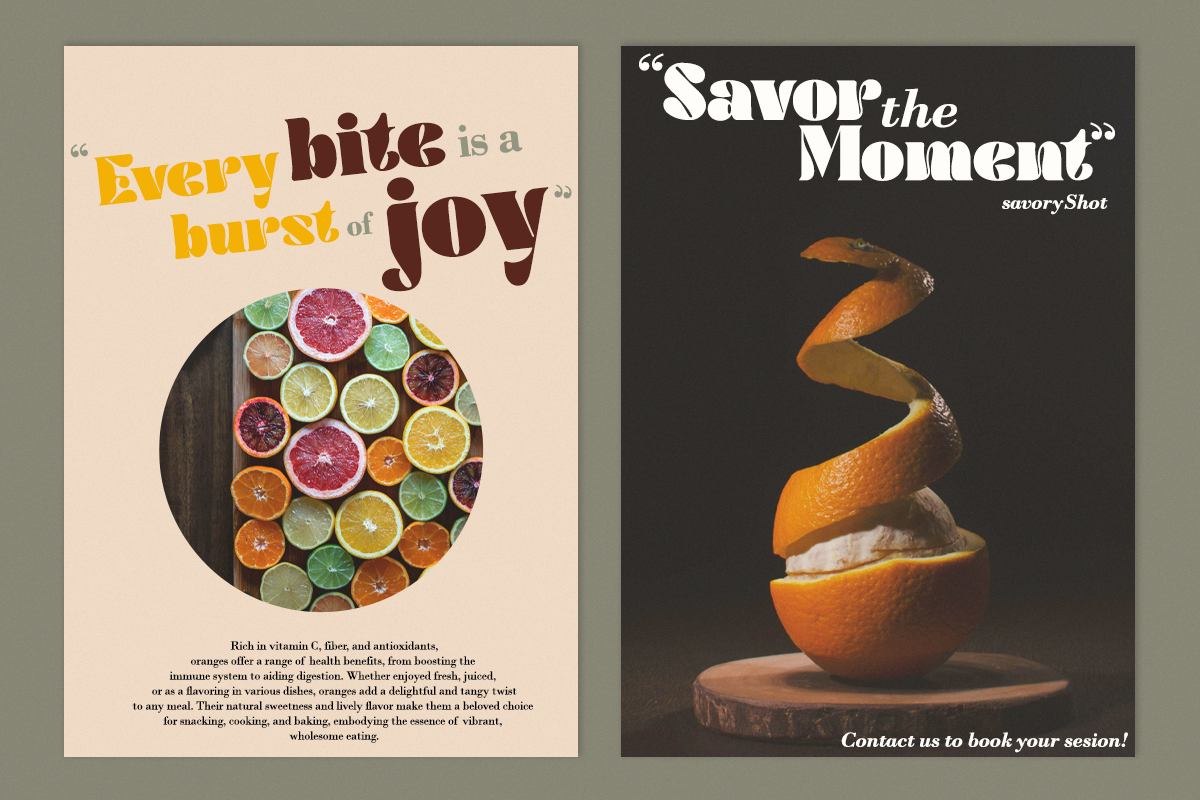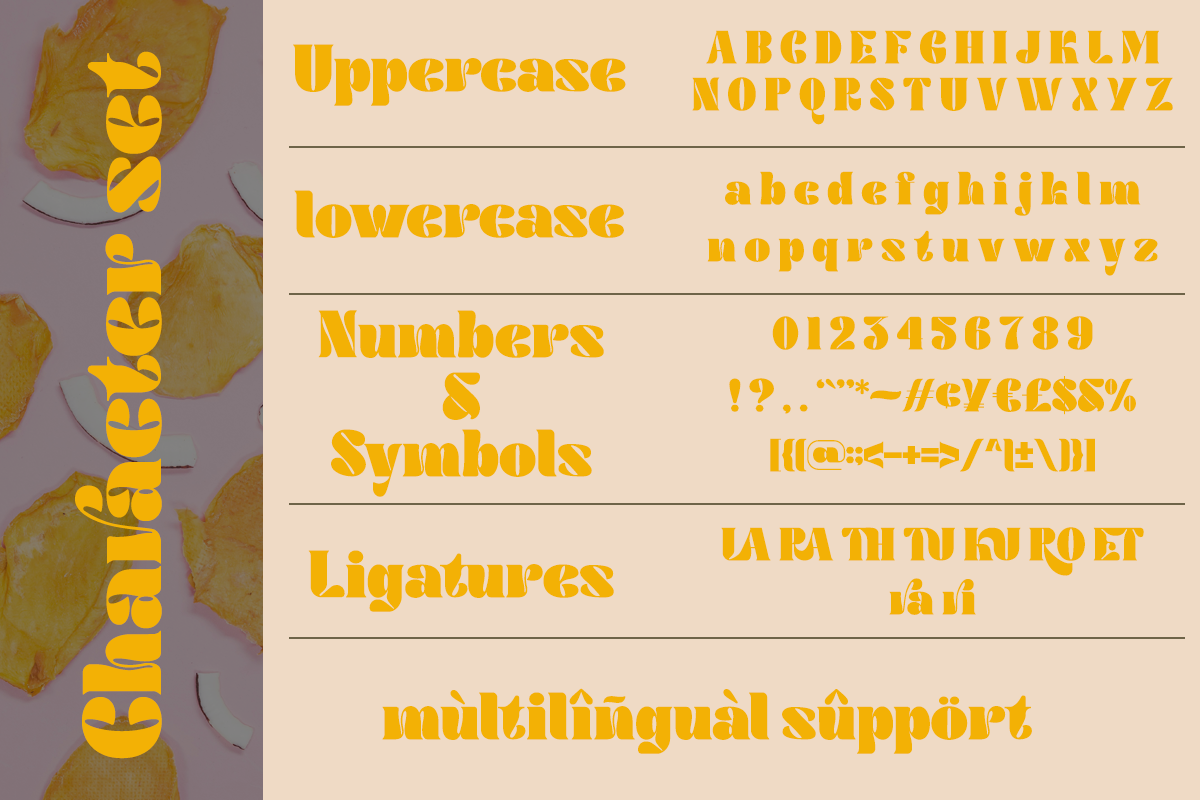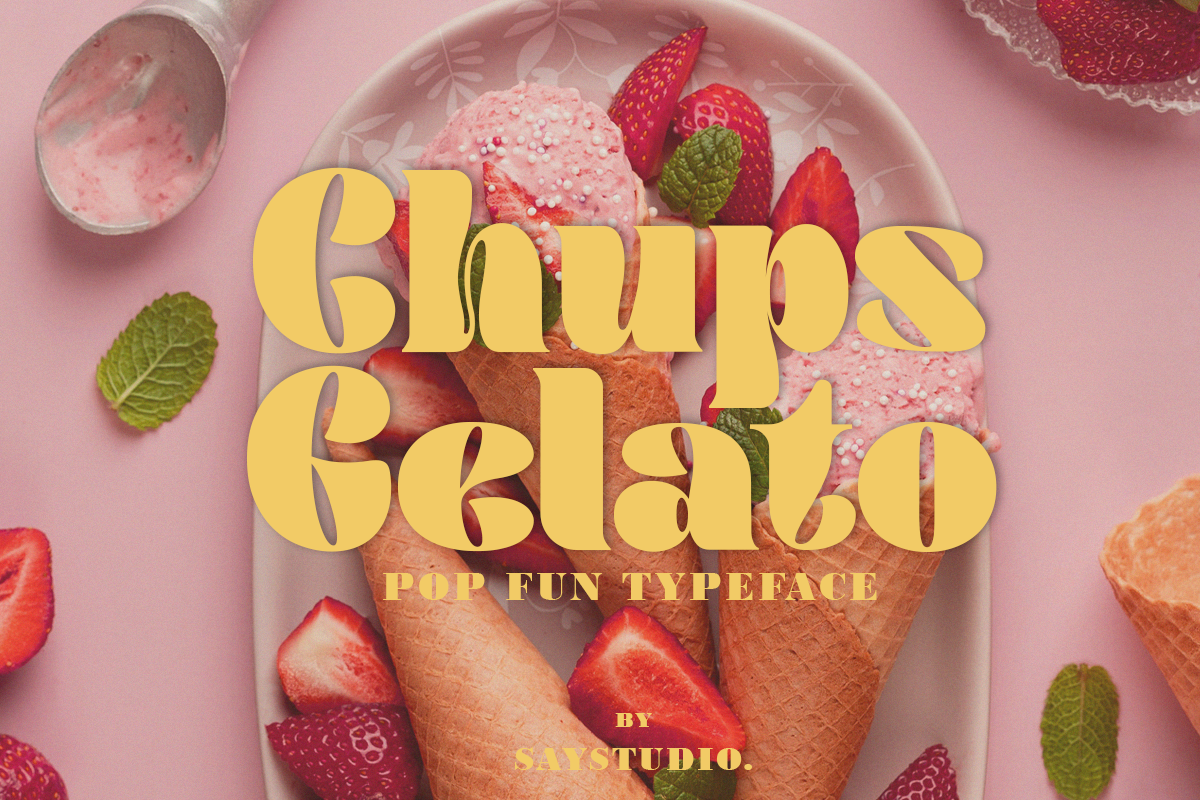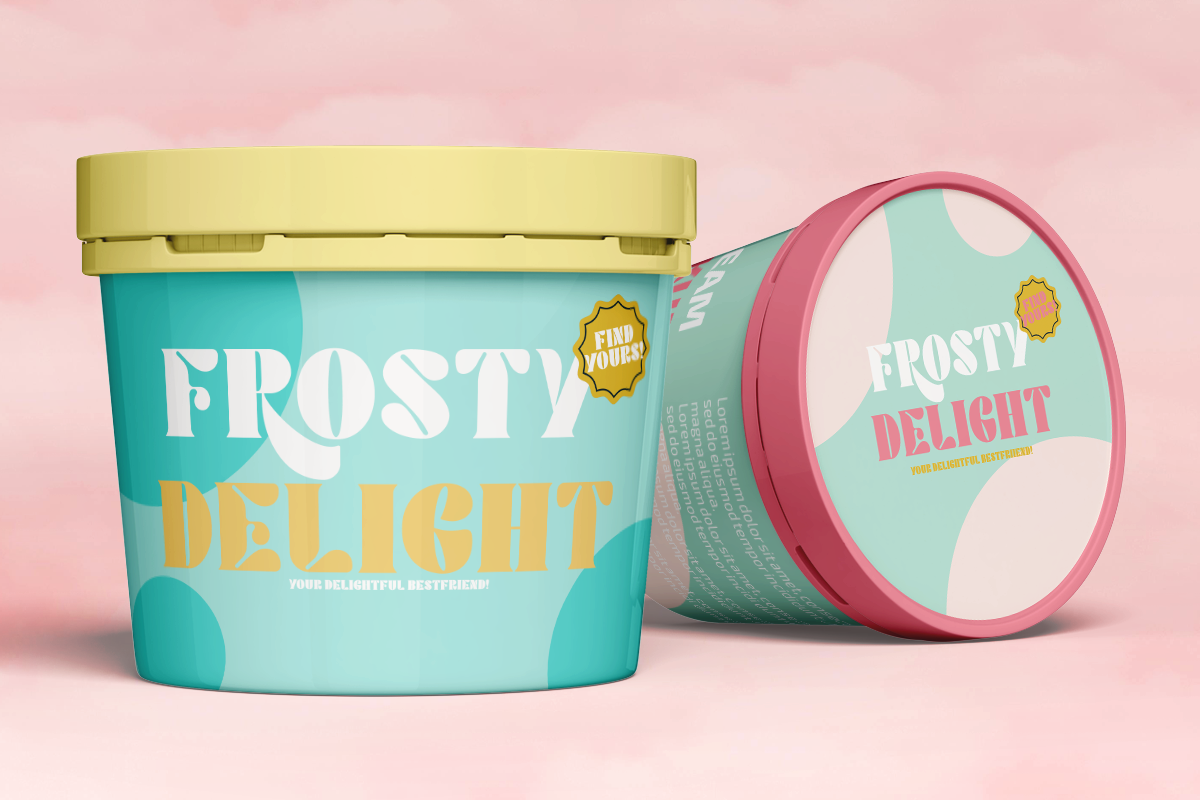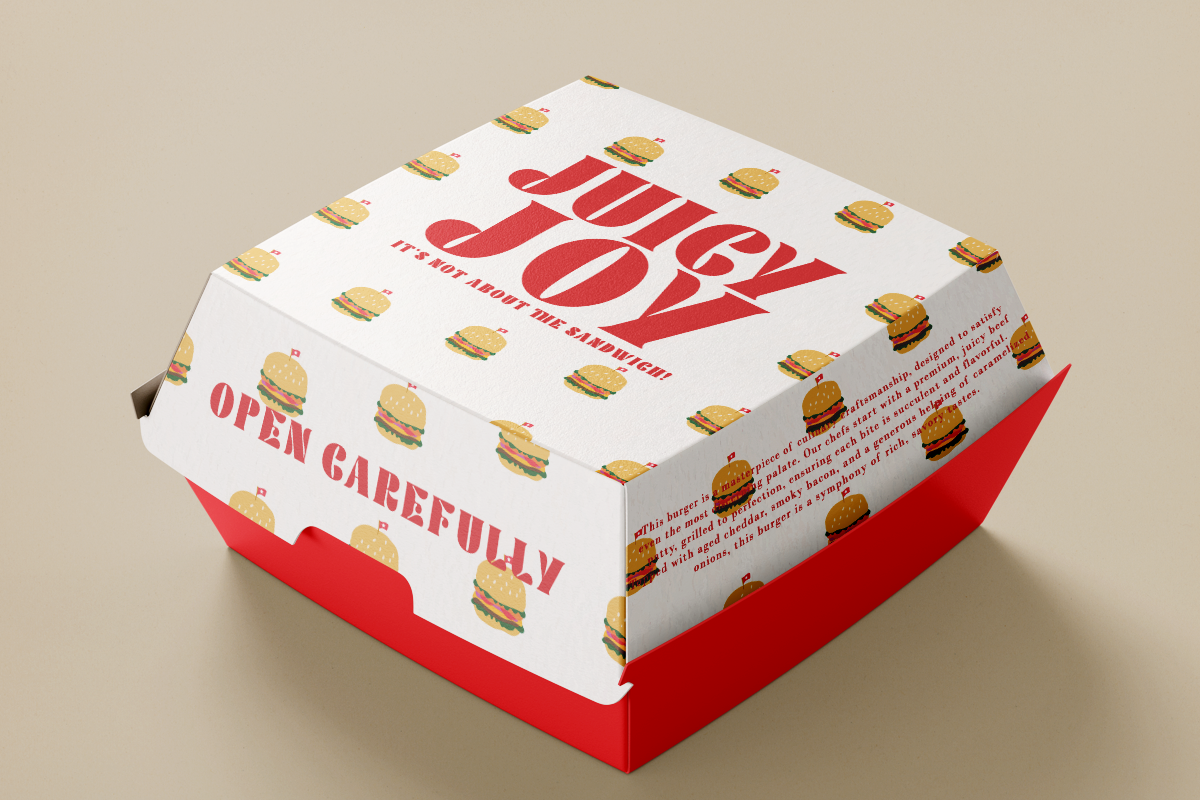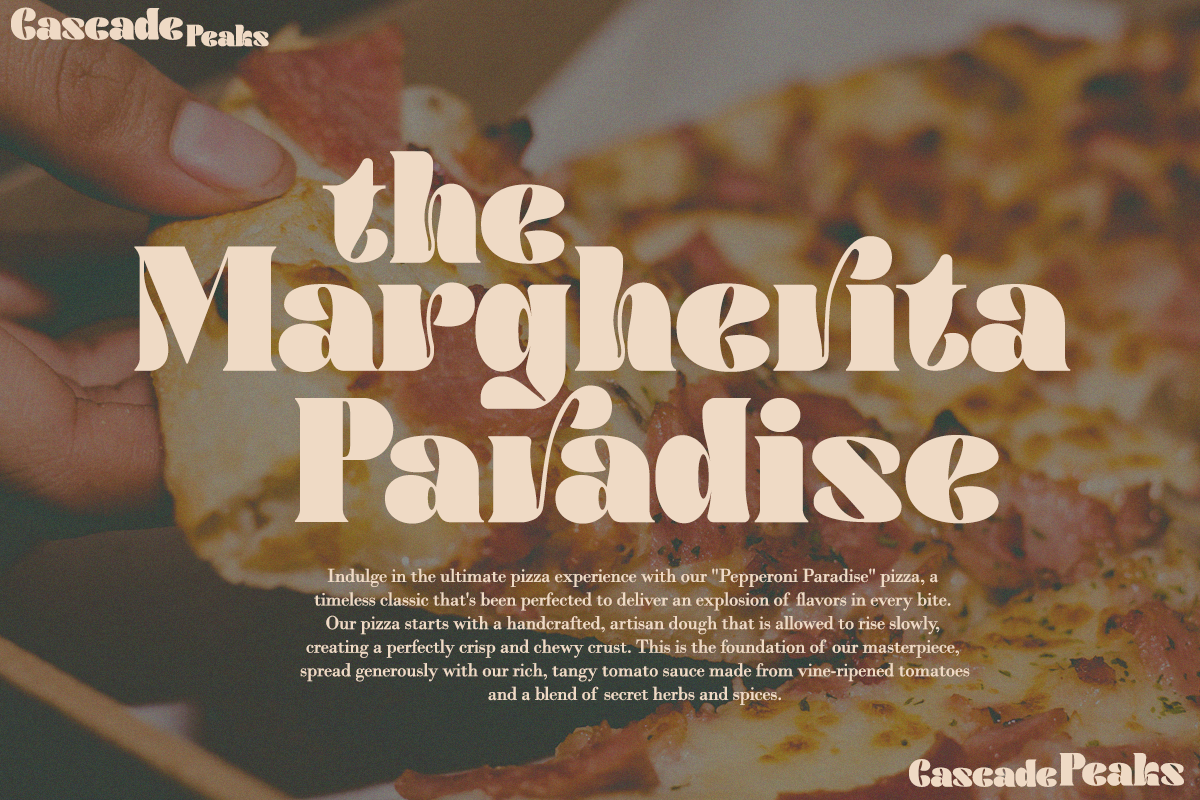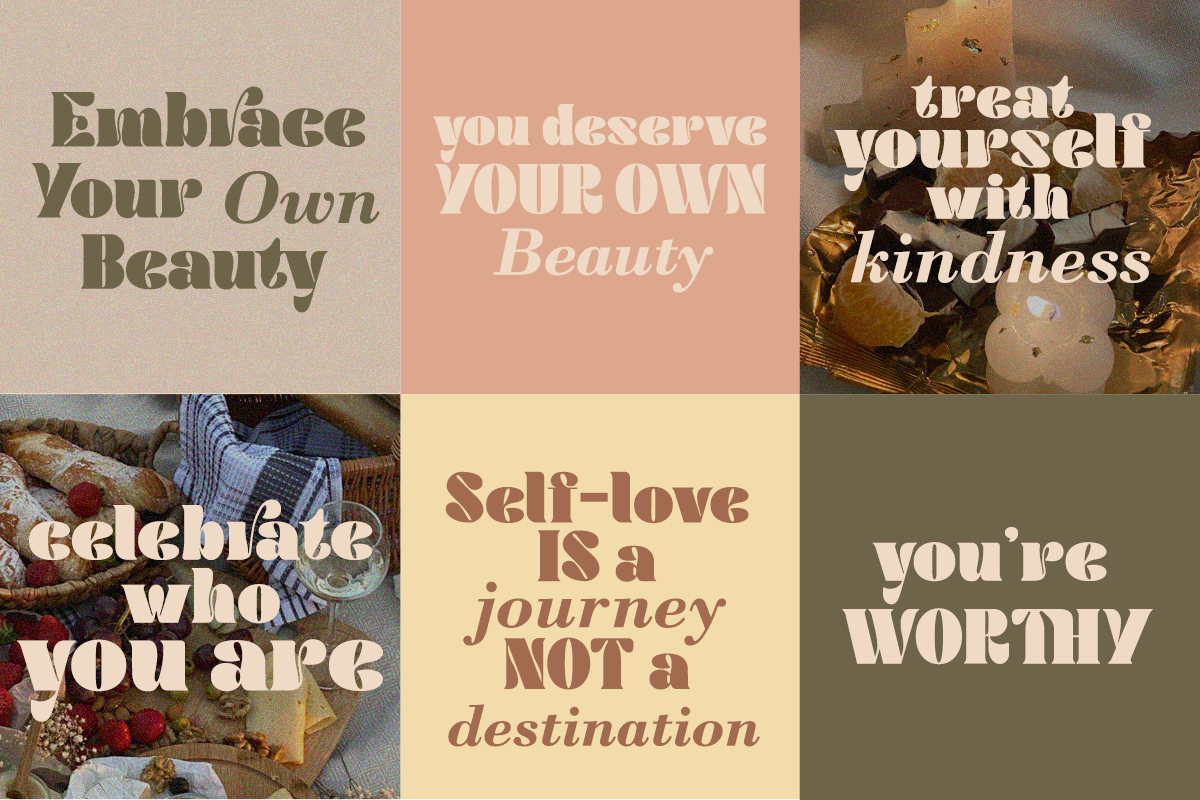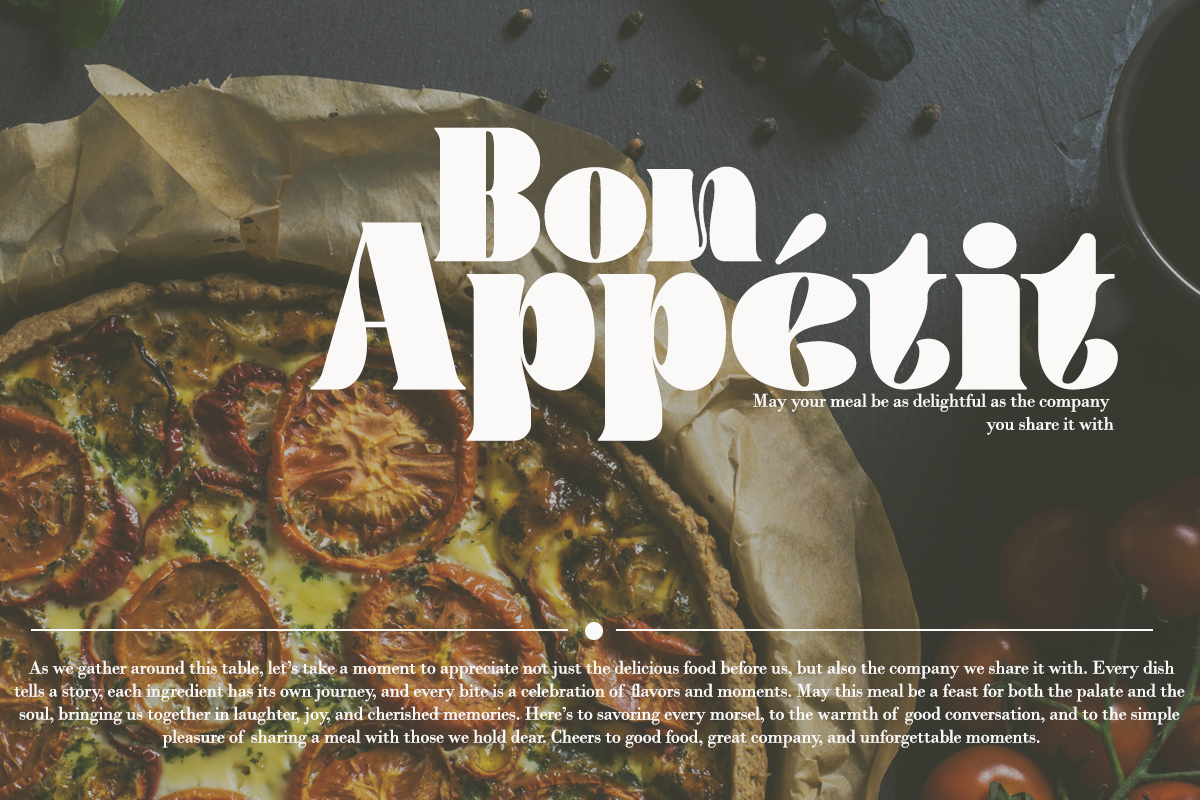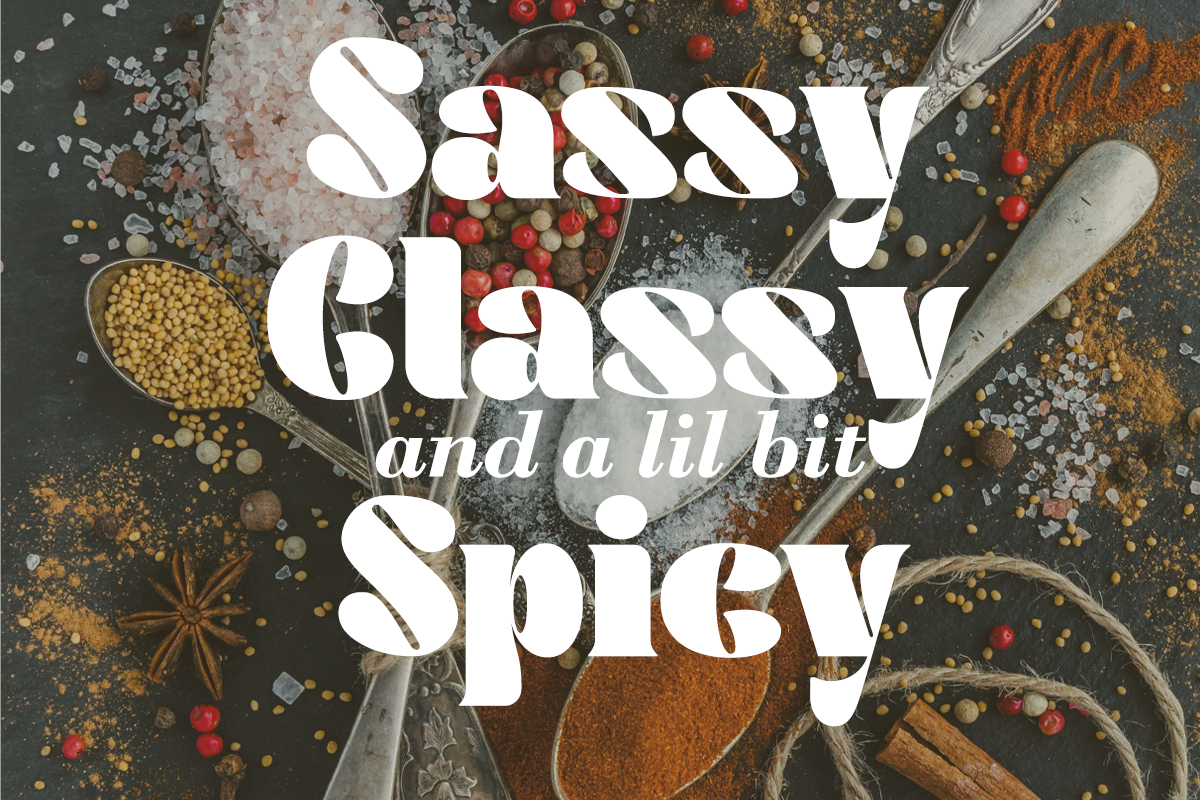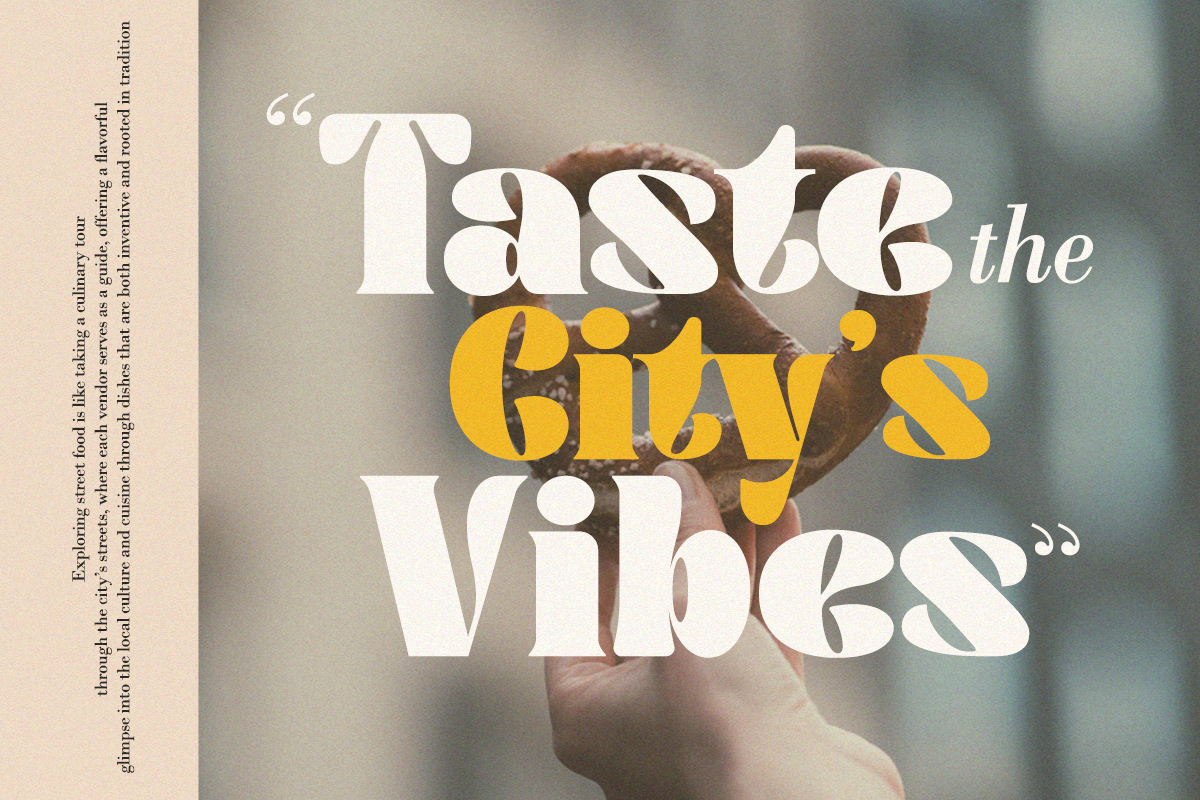
Chups Gelato - Pop Fun Font
Chups Gelato is a Pop Fun serif font with unique basic letters and look fun . modern and classic serif font with a clear and bold look. It’s a very versatile font and perfect for branding design, logos, greeting cards, title packaging. and other designs. Immediately use our fonts to make your work even more amazing.